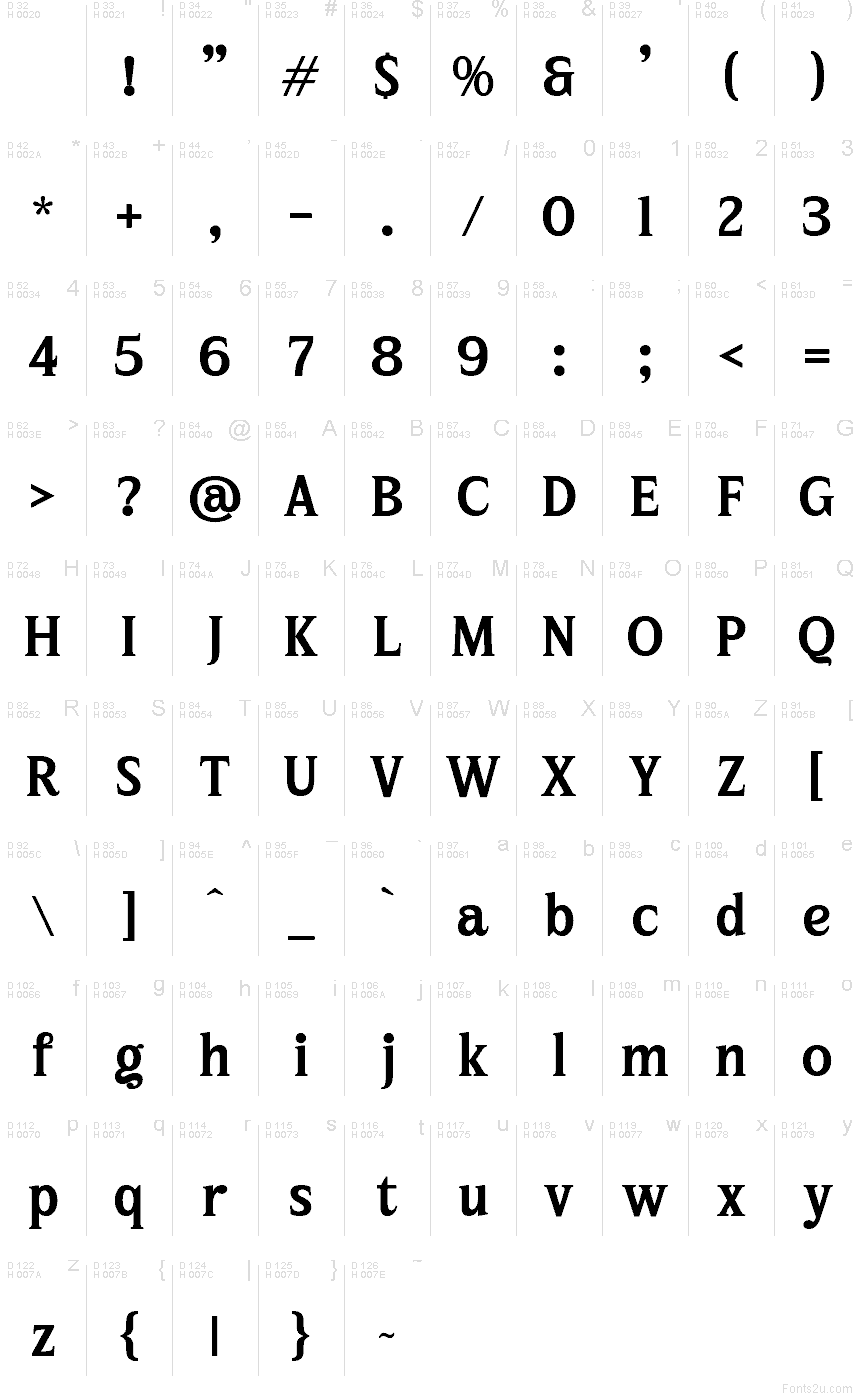
Nugira Rilasto by TimelessType.co is a free soft serif font with a lightly vintage, storybook tone. The letters mix sturdy classical shapes with rounded, almost inflated curves, and details like the large round dot and curled lower loop keep it feeling warm rather than formal.
It suits boutique branding, book covers, cafe menus, editorial title lines, and packaging where you want a serif that feels a little more personable. As a free font, it makes good sense for short headlines, logo sketches, or monogram-style initials, because those plush curves and old-style flavor give even a few letters a distinct voice.